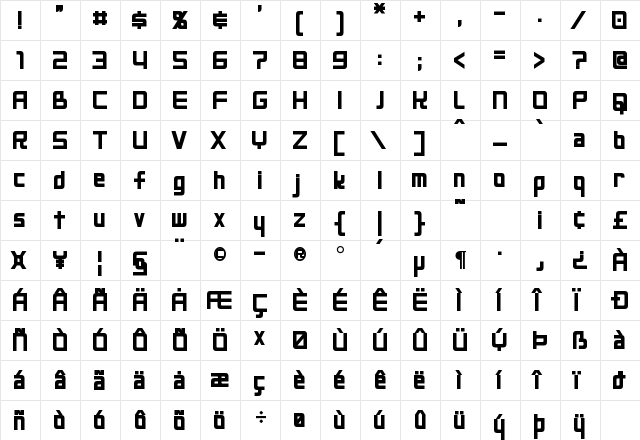
Neo Gen Bold
Bold ·  Neale Davidson ·
Design Context for Neo Gen Typeface
Neo Gen offers clean, dependable letterforms without strong stylistic allegiance, making it a practical choice for designers who need flexibility. The heavy weight commands attention and anchors typographic hierarchies.